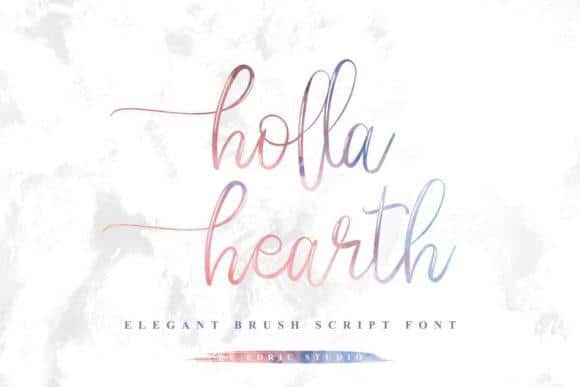
Holla Hearth feels elegant and well-rounded, with a unique aesthetic. Get inspired by its authentic charm.
This font is best used for your design project that has the concept of fun, girly, romantic and elegant.
Can also be applied to the design of a logotype, header website, wedding logo, romantic design, make some lettering a quote, t-shirt design etc.